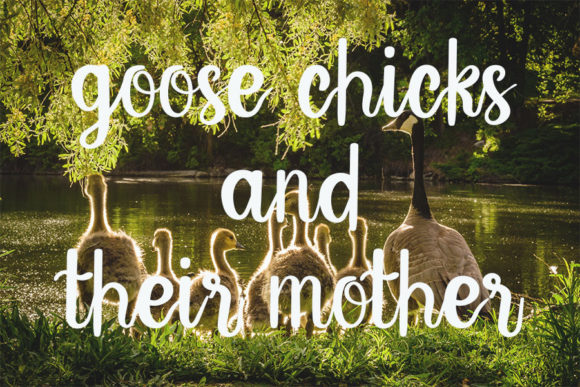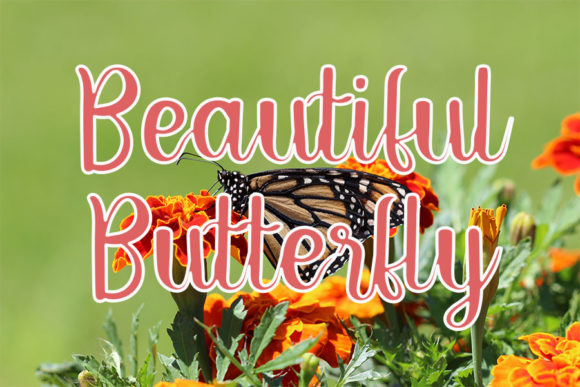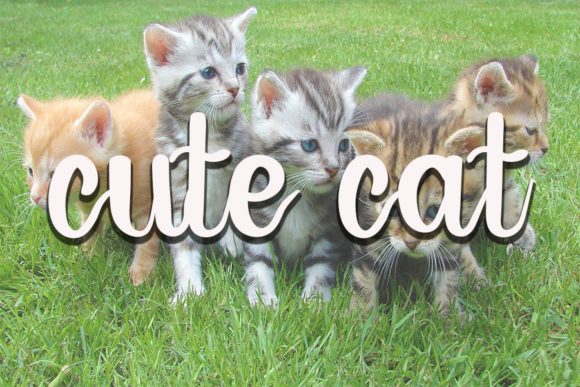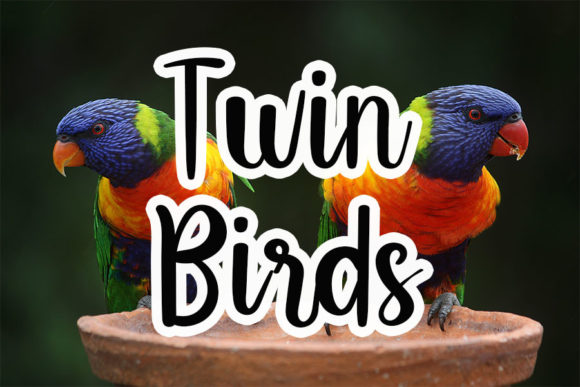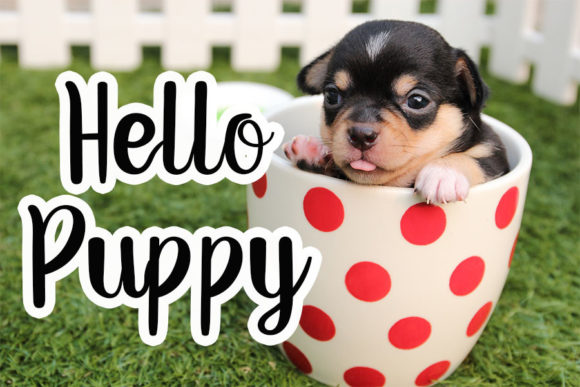
The Perfect Pen Stroke for Your Next Creative Project
Have you ever been brainstorming a design concept and suddenly, a spark of inspiration hits you? Maybe it’s the perfect color palette, or perhaps it’s a beautiful typography that sets the tone for your project. For me, it was the discovery of the Animals Font that sparked a wave of creative excitement.
Animals Font is a delicate, handwritten font that exudes romance and joy. Its slim lines and playful character make it perfect for writing wedding invitations, cards, or any other design that needs a personal touch. Whether you’re a seasoned designer or a hobbyist, Animals Font is an invaluable asset to have in your toolkit.
Animals Font Key Features
- Font Family: Animals Font is a unique, hand-drawn font family that includes a wide range of animal-inspired characters.
- Character Set: Includes a wide range of characters, including uppercase and lowercase letters, numbers, punctuation marks, and a variety of animal-inspired symbols.
- Unique Characteristics: Features a playful, hand-drawn style with intricate details and textures, making it perfect for children’s books, educational materials, and wildlife-themed designs.
Review of Animals Font
The Animals Font is an interesting and unique font, perfect for adding a playful touch to your designs. ✨ One of the things that stands out about this font is its wide range of animal characters, making it perfect for designs that require a fun and quirky feel. The font is also well-designed, with each character having a clear and recognizable shape. ✨
- Wide range of animal characters
- Well-designed characters with clear shapes
- Perfect for adding a playful touch to designs
However, there are a few limitations to consider. ⚠️ One of the main issues is that the font is not very legible at smaller font sizes. This can make it difficult to read and understand the text, especially in situations where space is limited. Additionally, the font is not as versatile as some other fonts, making it less suitable for formal or professional designs. ⚠️
- Not very legible at smaller font sizes
- Not as versatile as some other fonts
Overall, the Animals Font is a fun and unique font that is perfect for adding a playful touch to your designs. While it has some limitations, it can be a great choice for the right project. Just be sure to use it in a way that takes advantage of its strengths, and avoid using it in situations where its limitations will be a problem.
Animals Font is perfect for:
- Creating playful and whimsical designs.
- Adding a fun touch to children’s party invitations and decorations.
- Designing educational materials for kids.
Remember to experiment with different font sizes, colors, and arrangements to get the most out of Animals Font.